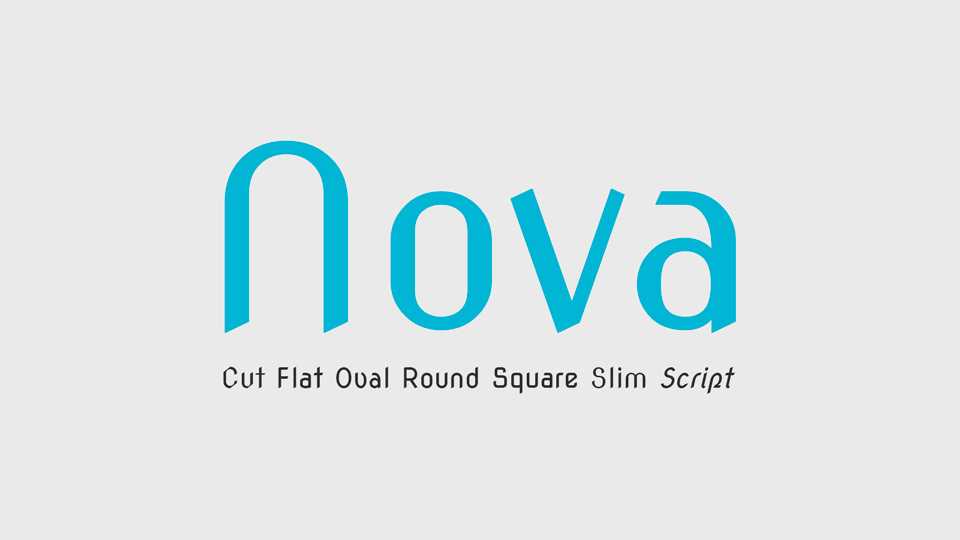
Download Nova font family, a creative typeface featured by 7 fonts Cut, Flat, Oval, Round, Square, Slim and Script. Nova is suitable for headlines, short messages, posters, covers, banners, logos, prints and more.
Designer: Wojciech Kalinowski